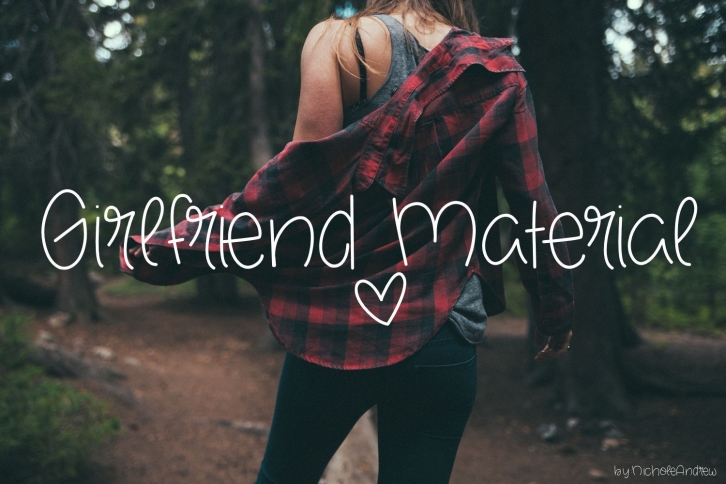
Girlfriend Material is a beautiful font that was designed by Nichole Andrew. It's a great choice for designers and creatives who need such a font. It was released on June 21, 2019 and the file size is 15.37 MB. Girlfriend Material may give a more youthful, expressive and casual look to your project. It is a very beautiful, refined, elegant, and high-quality font.